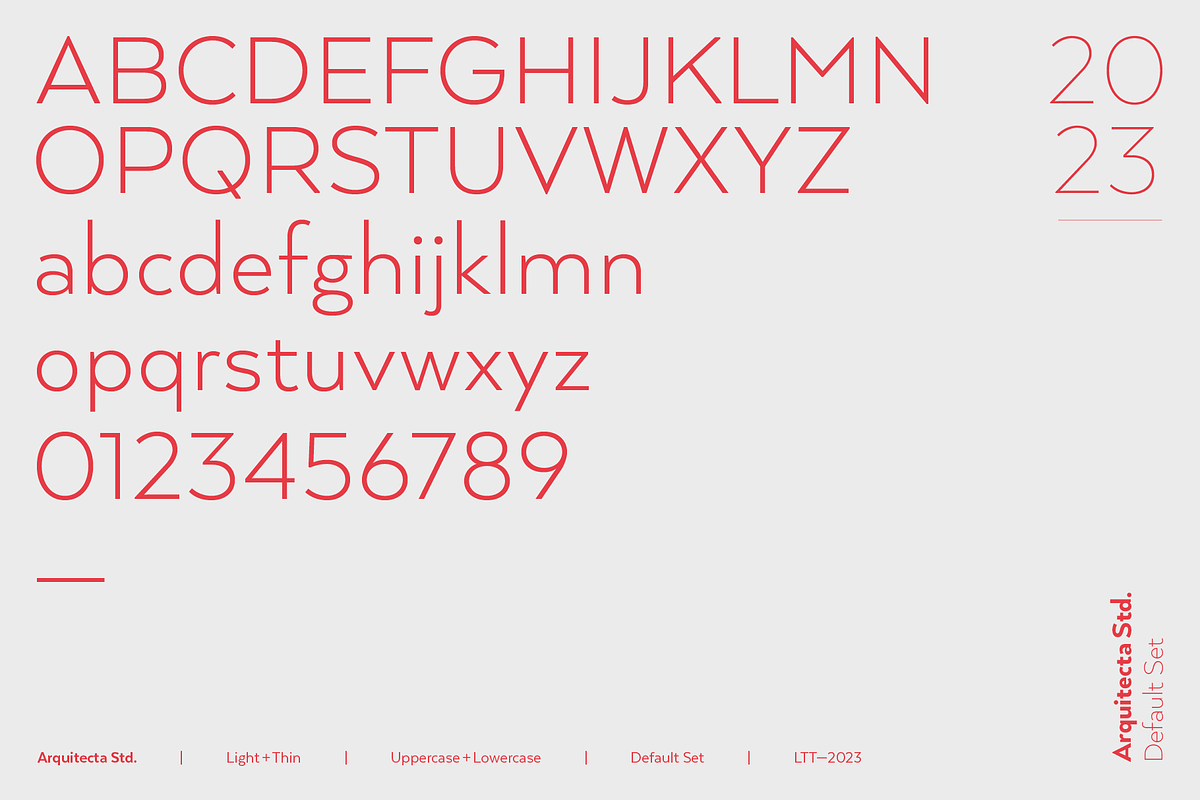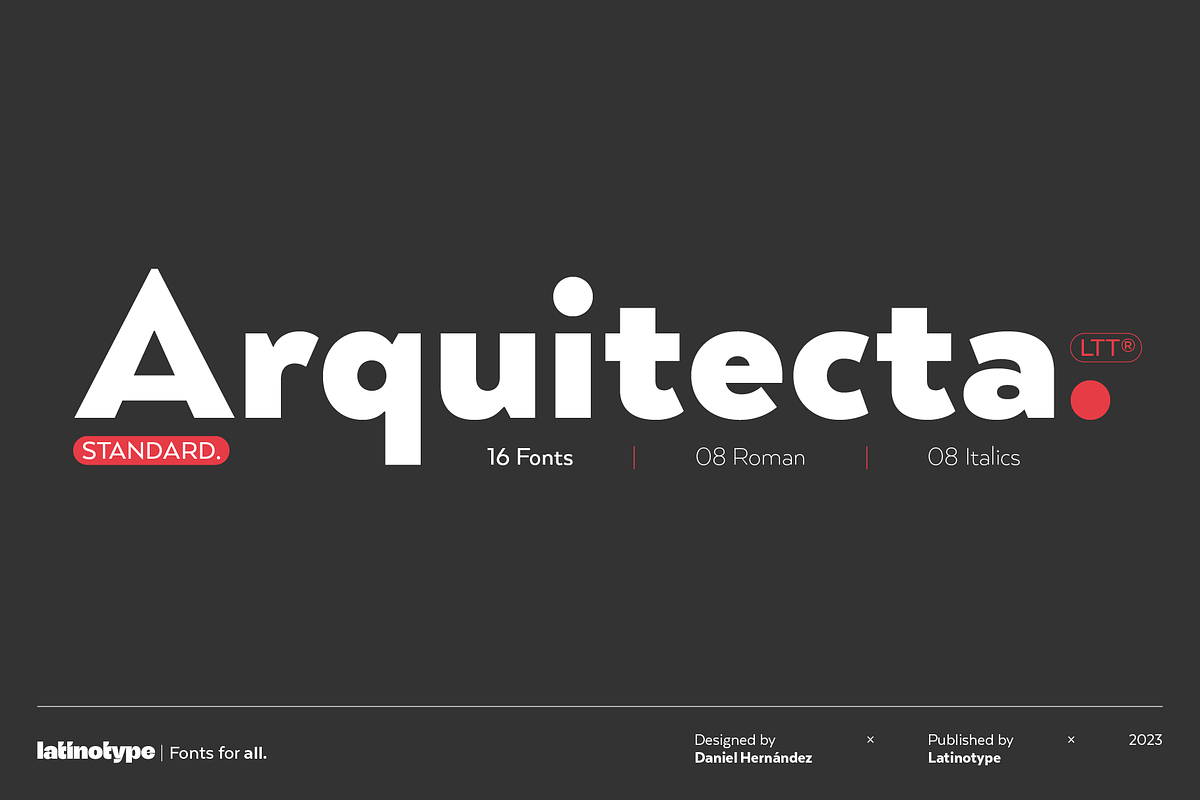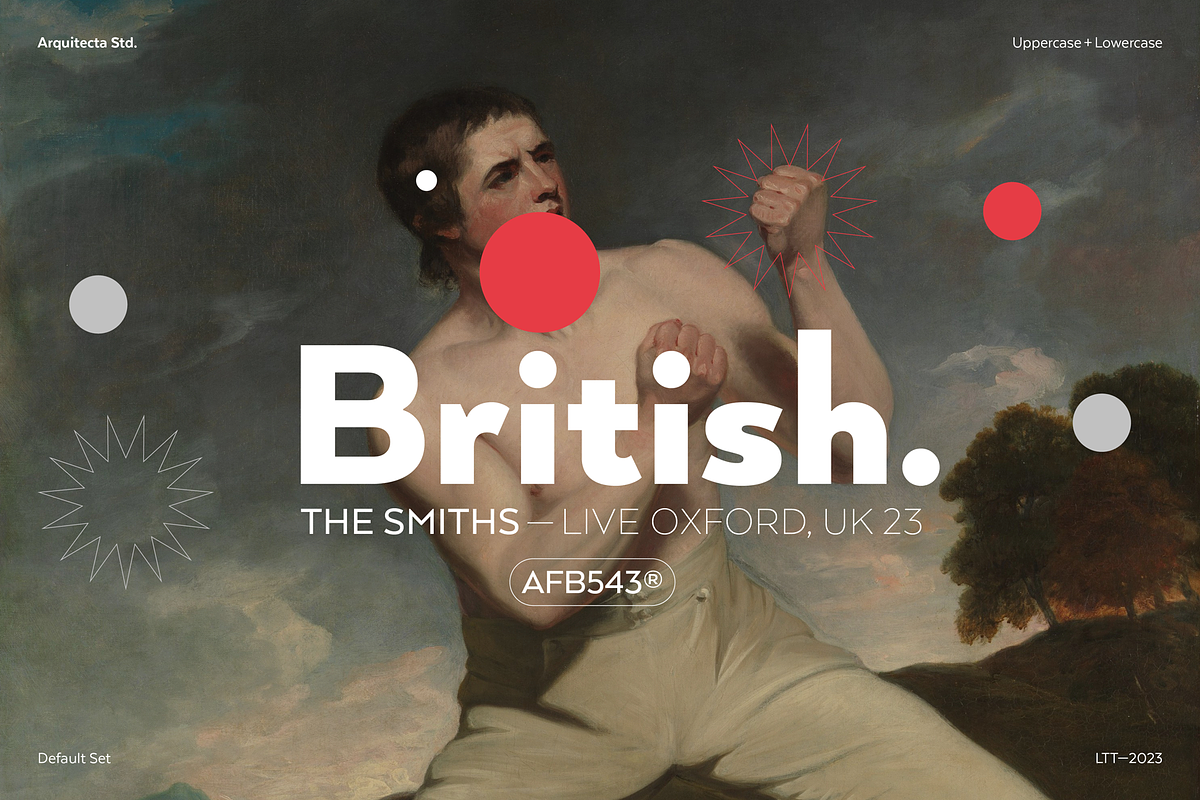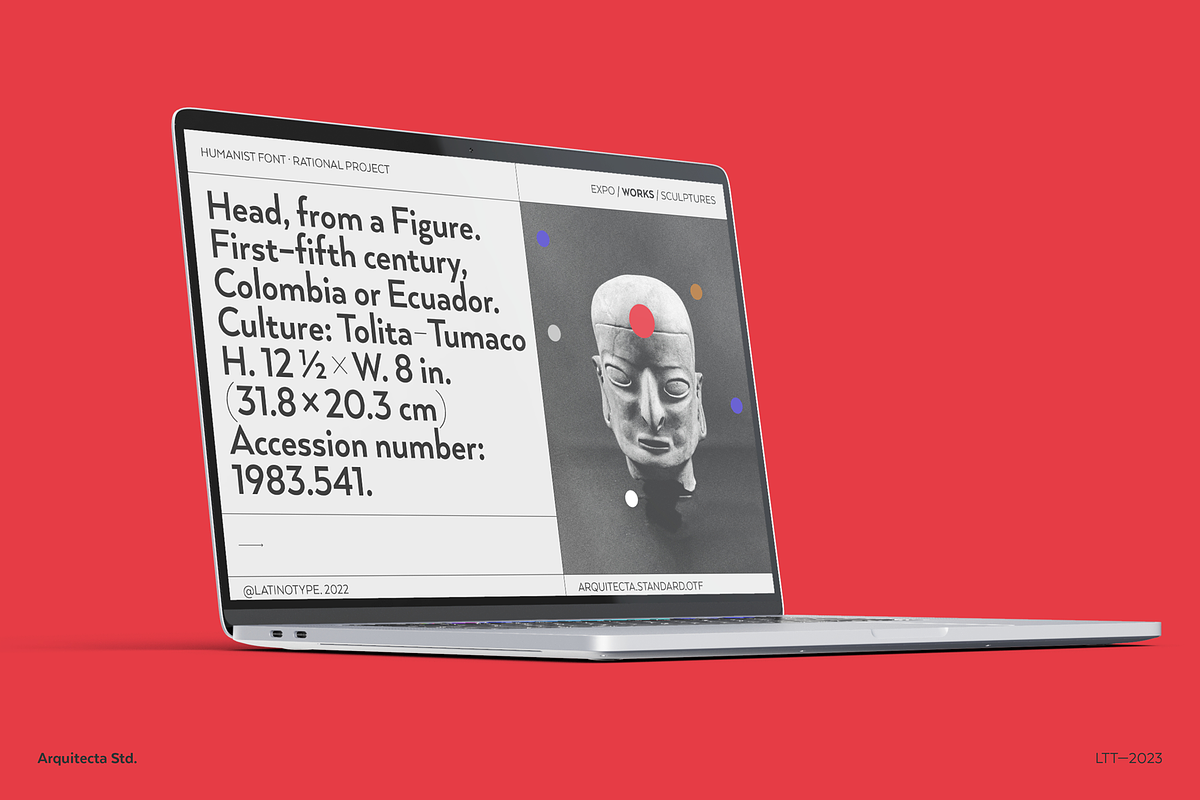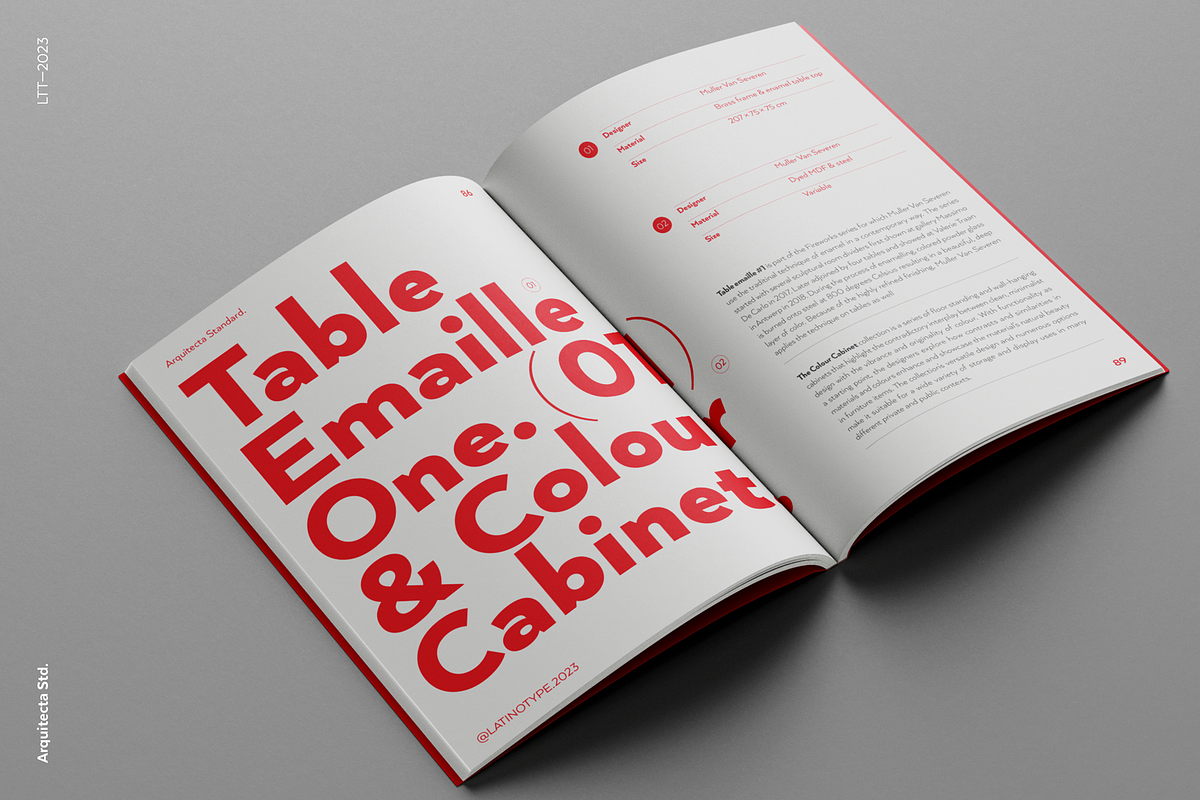
Arquitecta Standard. The humanist typography as a rational project.
Since the experimentation from the Bauhaus through modern sans history we looked for a new mix to construct a rational geometric typeface with humanist proportions suitable for text layout and continuous reading.
Inspired by American & European hand lettering from the first half of the past century, Arquitecta finds his own space as a great alternative for paragraphs in front of classics like Futura, Kabel or Avant Garde.
The family contains 8 upright romans and 8 italics with the following features:
European accents.
Ink traps to avoid press impressing spots & hinting optimized.
Small X-height with accentuated ascenders and descenders.
Arquitecta Standar update: Improvements of proportions and drawing. The set was extended to the current one of Latinotype.